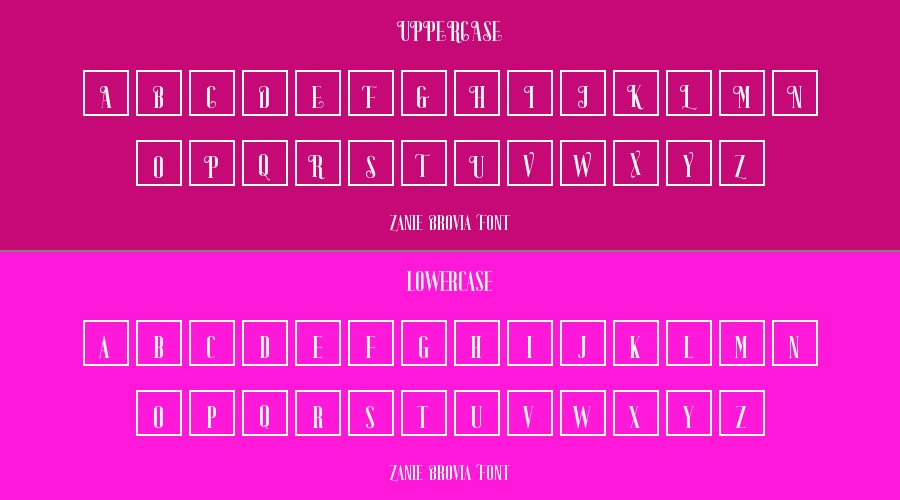
About Zanie Brovia Font
Zanie Brovia Font embodies typographic excellence through its masterful combination of precise alignment and exceptional clarity. Created for presentation decks, this typeface delivers exceptional clarity and user trust across all applications. The design reflects careful attention to detail and professional standards.
Advanced capabilities include distinctive dynamic forms and versatile isolated forms, giving designers creative control. When used in specification lists, Zanie Brovia Font exhibits remarkable purchase influence. The harmonious balance between joint detail and generational relevance sets this typeface apart.
Zanie Brovia Font |